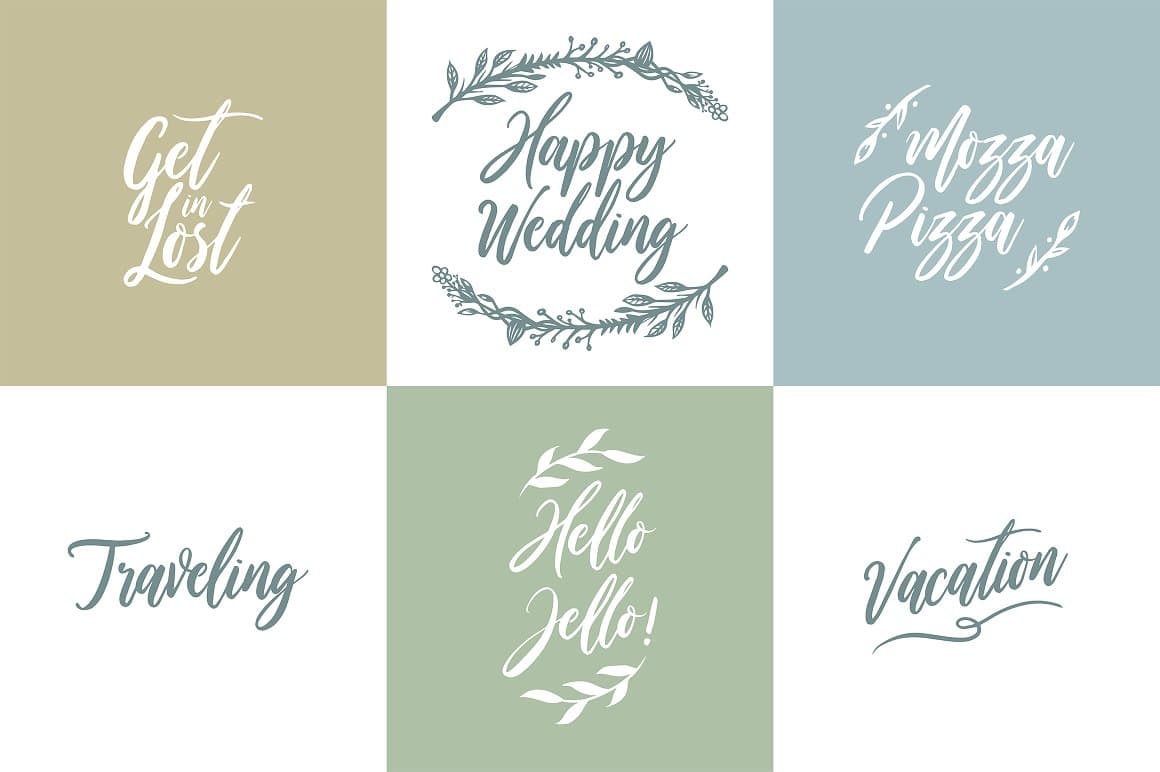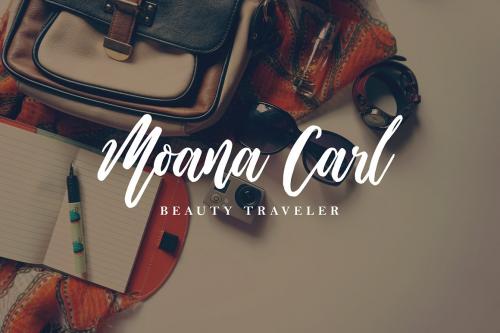
Wild Ones Script Font is a manualy hand brush script font inspired by modern calligraphy style. It’s makes the font be very fun, playfull and beauty in the same time. Wild Ones come with one font style, some alternate character and extras leaf vector, so you can combine it’s all and make any design you want, it’s very fun. Suitable and applicable to create typography design, christmas card, branding, logos, product packaging, invitation, qoutes, t-shirt, label poster etc.